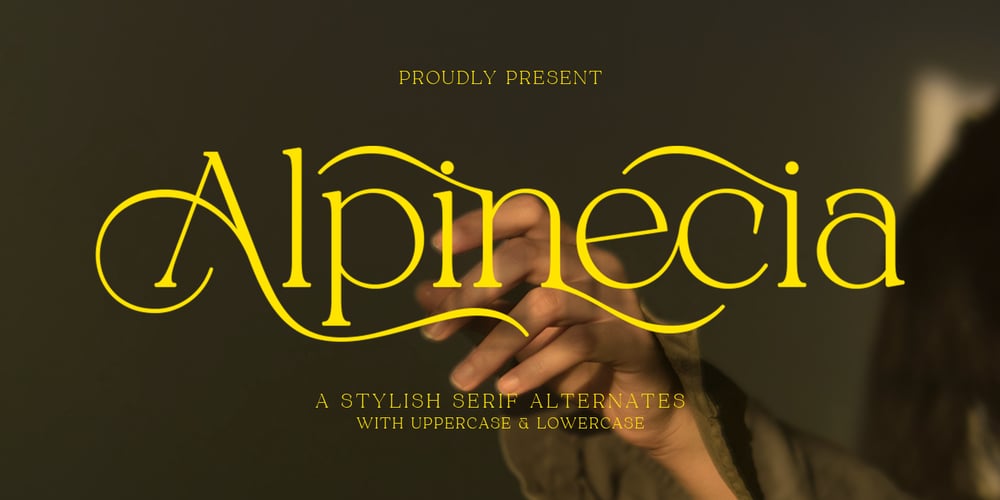
Alpinecia
Alpinecia font
Alpinecia Font Family was designed by Haikal Juanda and published by Pista Mova. Alpinecia contains 2 styles and family package options. Trendy, classy & modern stylish serif font for your luxury projects. Alpinecia elegant, fashion and classic font style will be a perfect fit for any branding project. Many alternatives and bindings will help you create a unique and original logo or website header design!Multilingual supportUppercase LowercaseNumberPunctuationMany alternative charactersLots of ligaturesFont networkPUA coded.Perfect for modern branding projects!Happy creating new ideas ๐Ÿ™‚